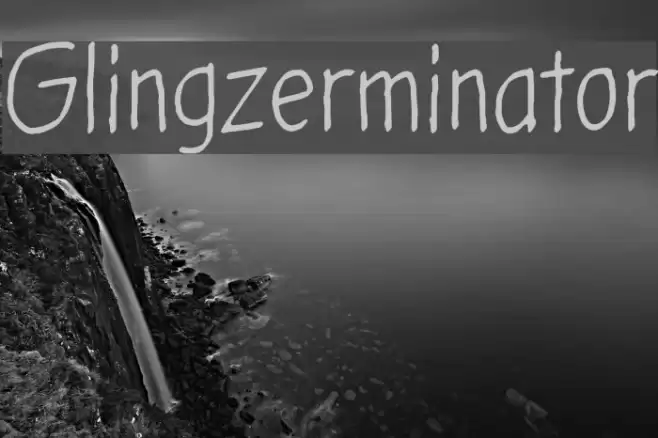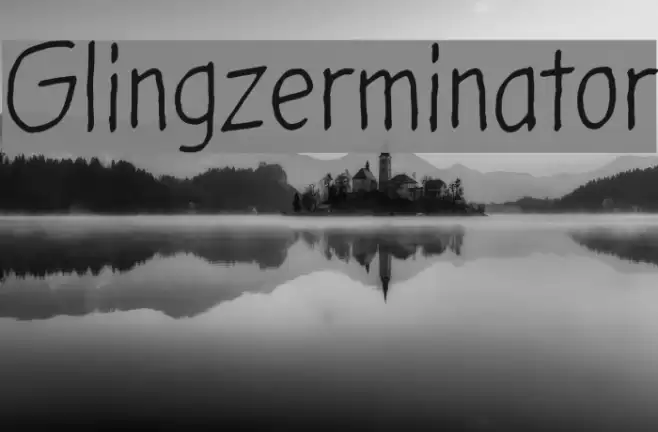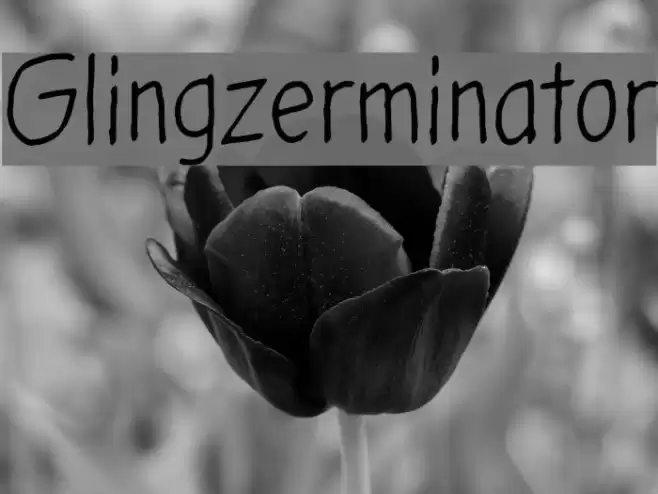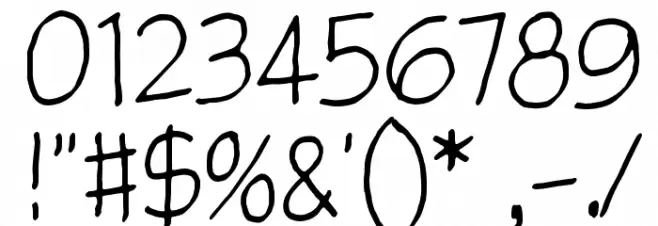
Glingzerminator Font
Glingzerminator Description
This font features a playful and casual handwritten style, characterized by its irregular strokes and slightly uneven baseline. The letters have a natural flow, mimicking the look of hand-drawn text with a touch of whimsy. The uppercase and lowercase letters maintain a consistent style, with rounded edges and a slightly tilted appearance, adding to the informal and approachable feel. The numerals and special characters follow the same design principles, ensuring a cohesive look across all characters. This font is ideal for projects that require a personal and friendly touch, such as invitations, greeting cards, or creative branding.
A playful, handwritten font with a casual and whimsical style from Handwritten fonts.
- Proposed Projects: Ideal for invitations, greeting cards, personal branding, and creative projects.
- Overall Style: Casual
- Use Case: Creative projects, personal branding, informal communications.